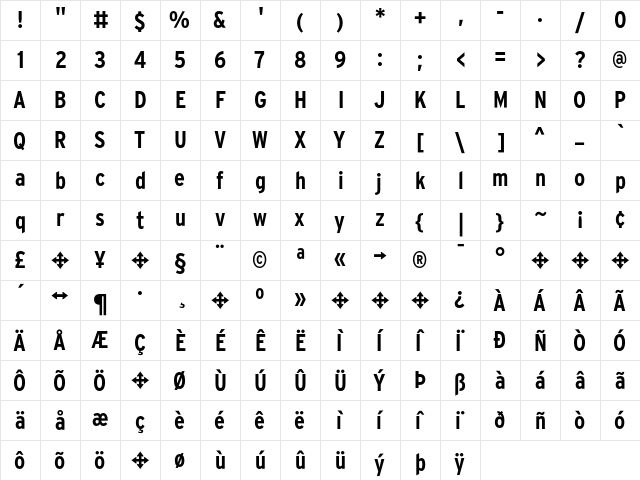
Interstate-BoldCondensed Regular
Design Context for Interstate-BoldCondensed Typeface
Interstate-BoldCondensed offers clean, dependable letterforms without strong stylistic allegiance, making it a practical choice for designers who need flexibility. Its bold stroke weight gives it real presence on the page. The condensed width makes it efficient for tight spaces without sacrificing legibility.